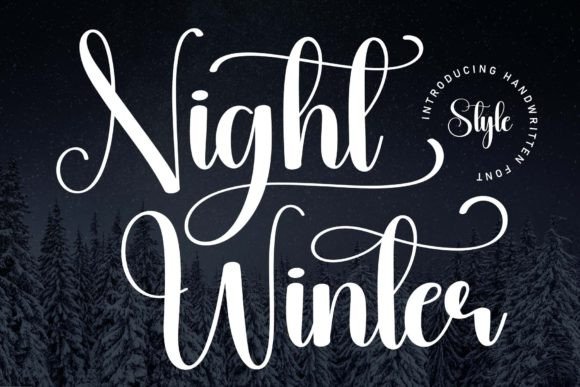
Introducing Night Winter Font, the perfect font style for Halloween! Created by Creativewhitee, this script font is designed to elevate your projects and give you an extraordinary experience. With its special creative touch, Night Winter Font is a must-have for anyone looking to make a statement.
With the latest style letters, this font is ideal for a wide range of uses. Whether you're creating wall displays, wedding invitations, social media post logos, advertisements, product packaging, or designing labels, Night Winter Font will bring your vision to life. Its unique handwriting style adds a touch of elegance and charm to any project.
One of the most remarkable features of Night Winter Font is its encoded PUA character. This means you can access all its characters without the need for additional design software. Say goodbye to limitations and hello to endless possibilities. Night Winter Font empowers you to explore your creativity and achieve remarkable results.